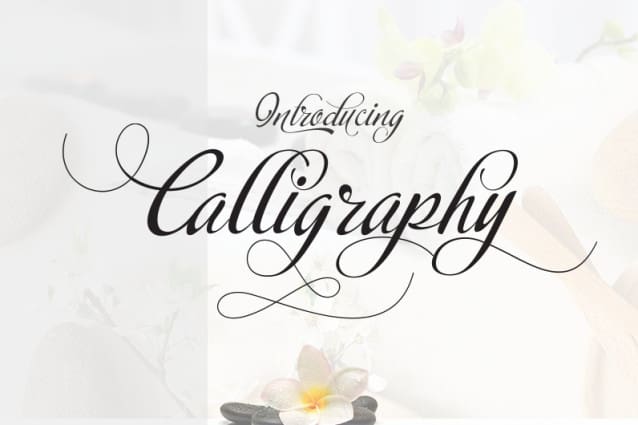
Calligraphy Elegant Font
Calligraphy Elegant Font, is an elegant and bouncy script font, ideal for those who need a touch of glamour with a relaxed look. This font comes with tons of stylistic alternates, and gives your projects a special and extravagant look.